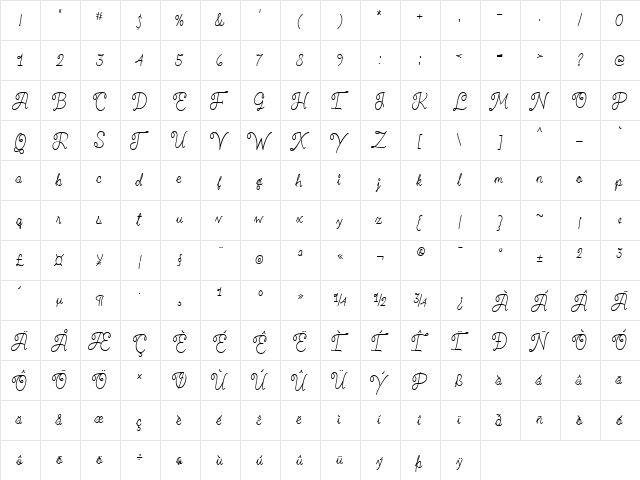
Kind Handwriting Regular
Design Context for Kind Handwriting Typeface
Kind Handwriting flows with the natural rhythm of handwritten lettering, making it ideal for designs that call for warmth and personal expression.
Font Pairing: Combine Kind Handwriting with a simple geometric sans for maximum contrast — the tension between flowing curves and clean structure is a classic typographic pairing.
Pro Tip: Pair Kind Handwriting with a clean sans-serif for supporting text. The contrast between fluid script and geometric structure creates an elegant typographic hierarchy.